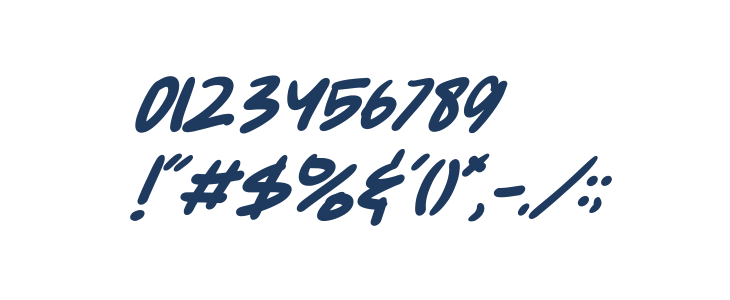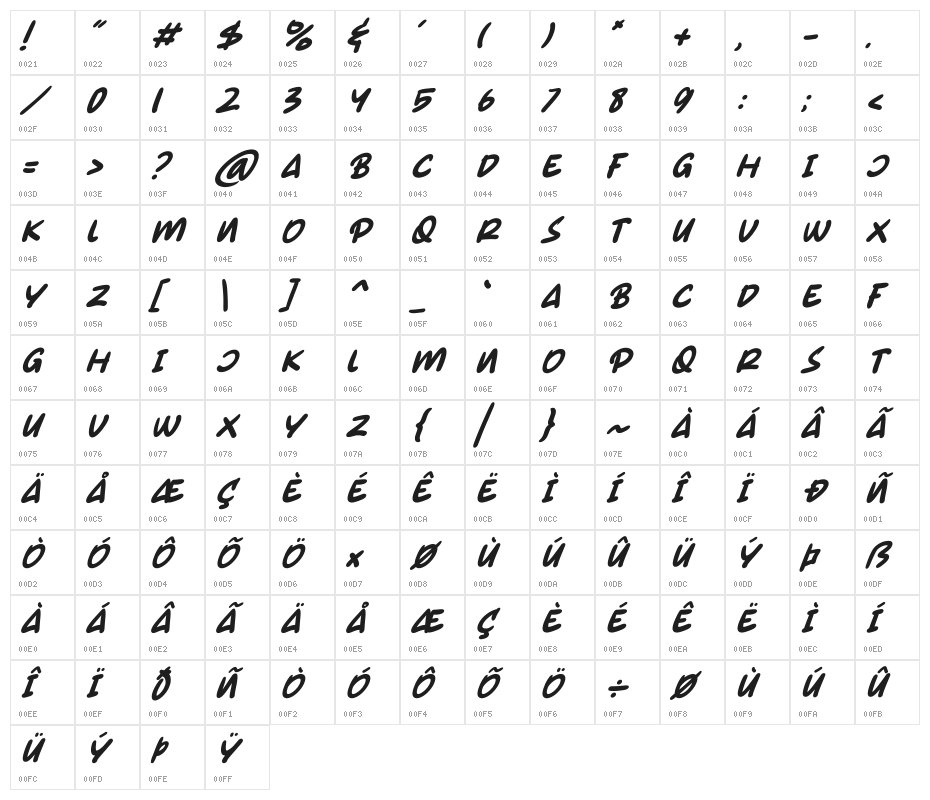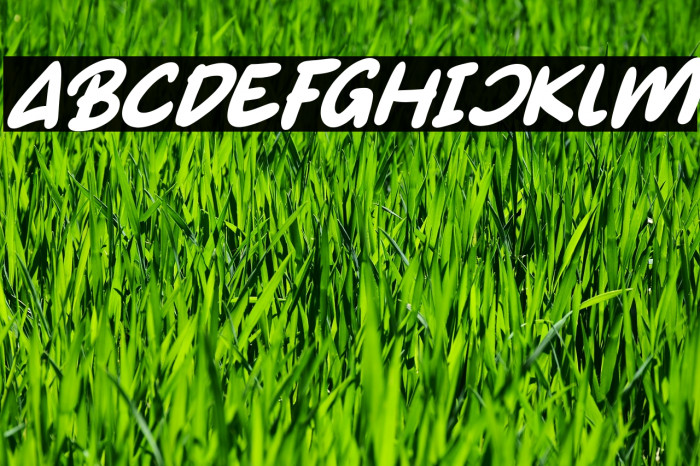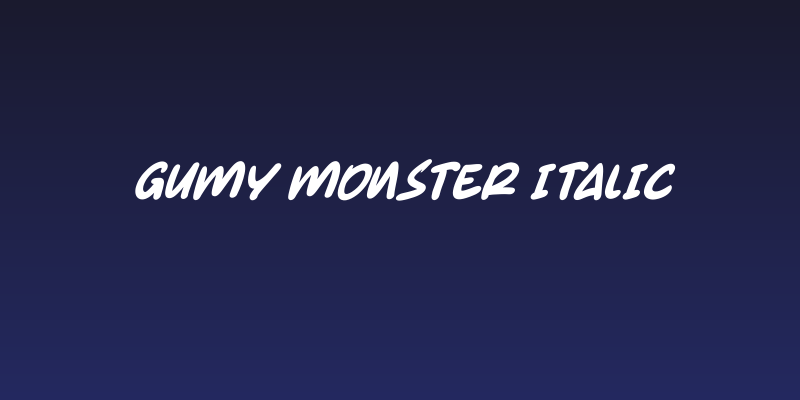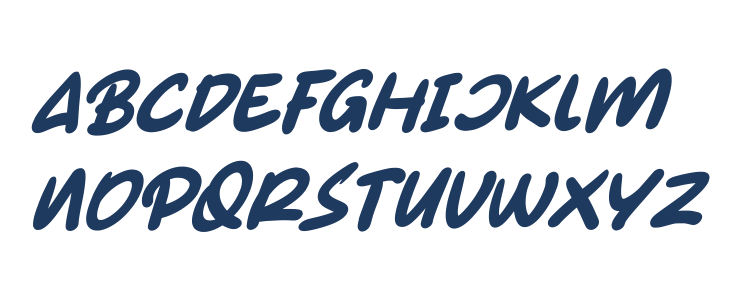
Gumy Monster Italic Font
Gumy Monster Italic Description
This font features a bold and dynamic script style with a playful, energetic feel. The letters are slanted, giving it an italicized appearance that enhances its lively character. Each character is crafted with smooth, flowing strokes, creating a sense of movement and rhythm. The uppercase and lowercase letters maintain a consistent style, with rounded edges and a slightly exaggerated thickness that adds to its boldness. The numbers and special characters are equally expressive, maintaining the same fluidity and bold presence. This font is ideal for projects that require a fun and engaging visual impact.
| Proposed Projects | Perfect for children's book covers, playful branding, event posters, and creative social media graphics. |